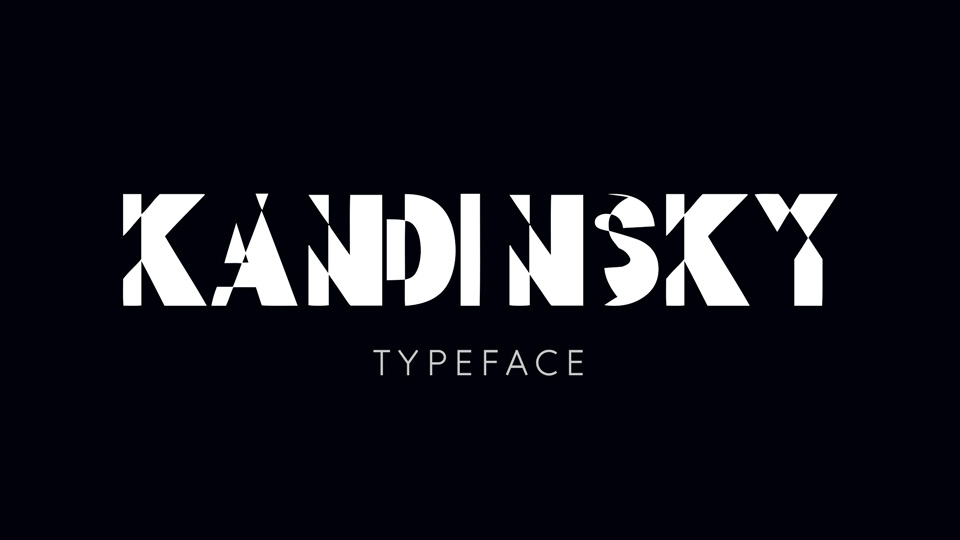
Download Kandinsky is a creative experimental typeface with distorted shapes inspired by artworks. Kandinsky font is perfect for posters, headlines and other art projects.